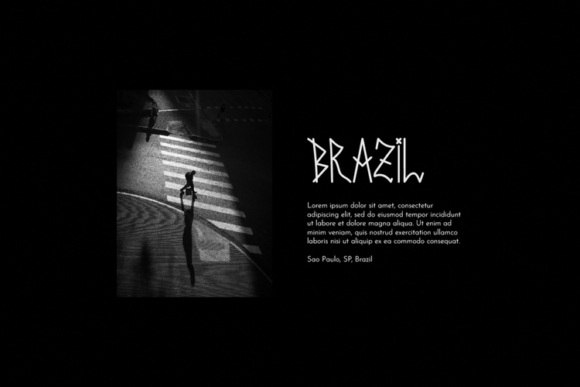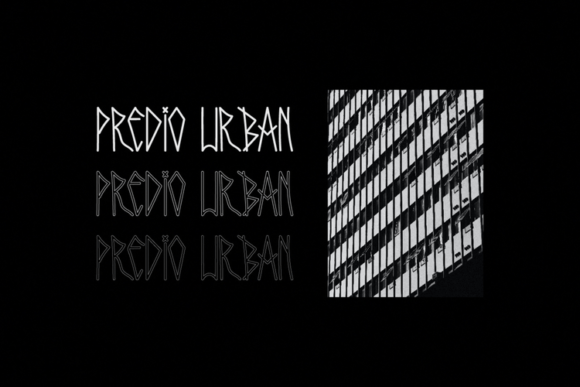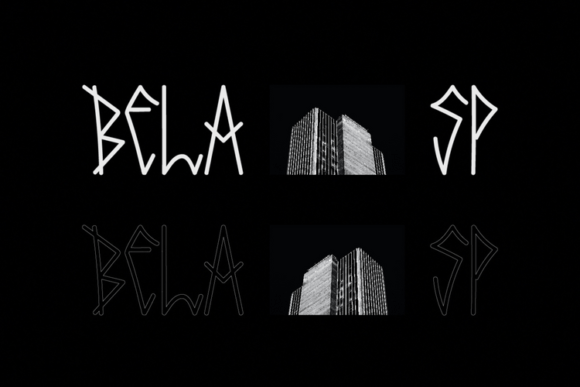
Introduction to Mosdecan Font
Mosdecan is a cool, fun and modern display font.
This typeface will enhance your craft with little effort, making your product stand out from the competition .
Why Choose Mosdecan Font?
Mosdecan Font offers exceptional quality and versatility, making it a valuable addition to your design toolkit. Whether you’re creating for personal projects or commercial use, Mosdecan Font delivers professional results.